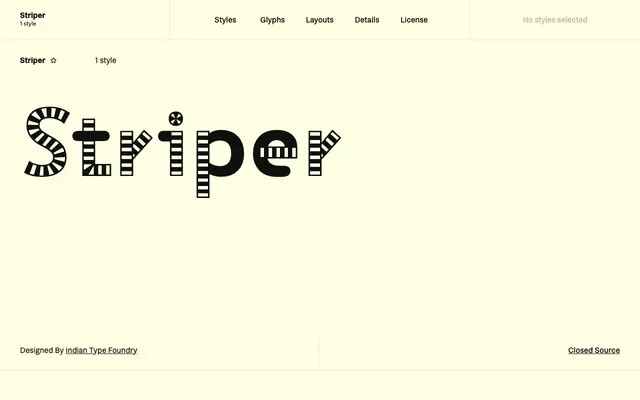
Striper
A decorative sans serif from Indian Type Foundry in which every straight stroke is replaced with a zebra-stripe pattern, intended for large-size headline use.
Designed by Jitka Janečková, Striper swaps the straight horizontal, vertical and diagonal strokes of a conventional sans serif for a repeating stripe motif, giving single words or short headlines a distinctive hand-crafted ornamental quality. The font ships with two alternate forms per character via OpenType Stylistic Sets: the first offers different skeletal shapes and alternative stripe placements, while the second provides significantly wider letterforms that function almost as a second extended variant within the same file. The stripes are sized for display use, and the effect loses legibility at small sizes.
Categorised as Display by the foundry; Striper is a decorative sans serif where straight strokes are replaced with zebra-stripe patterns, making it unsuitable for text use and firmly ornamental in character.